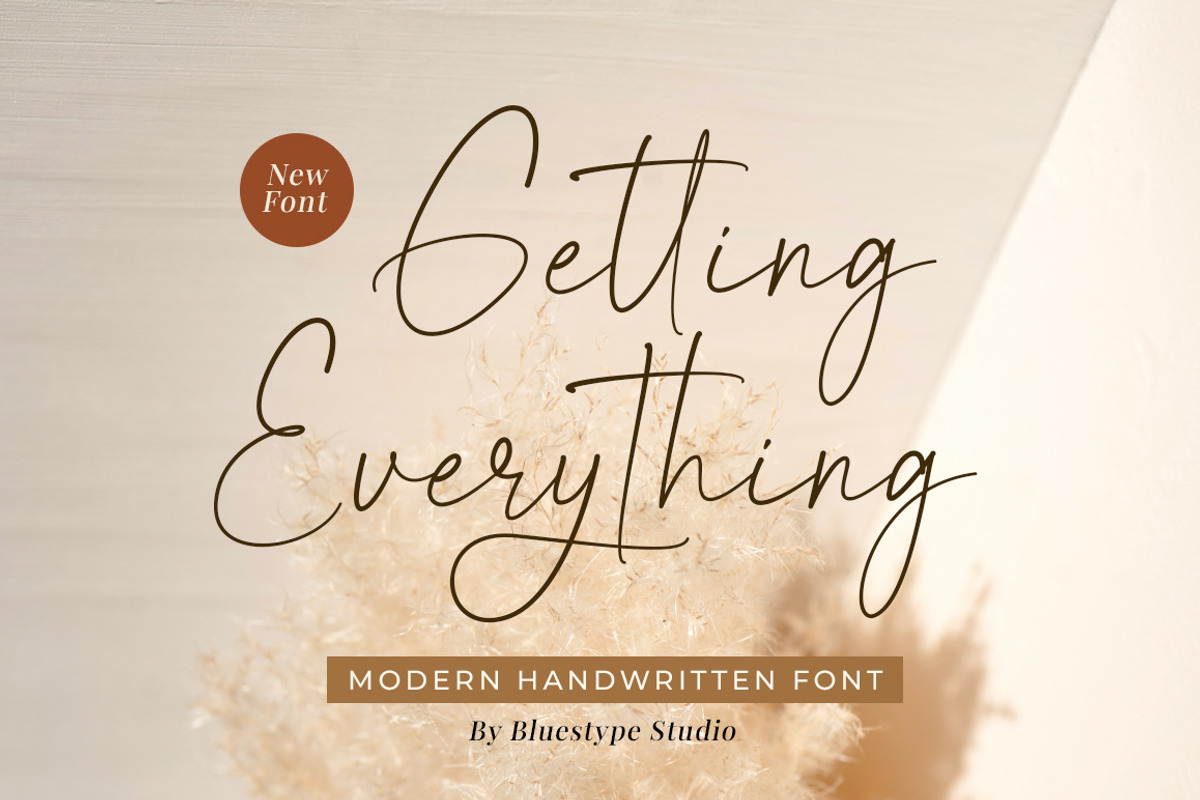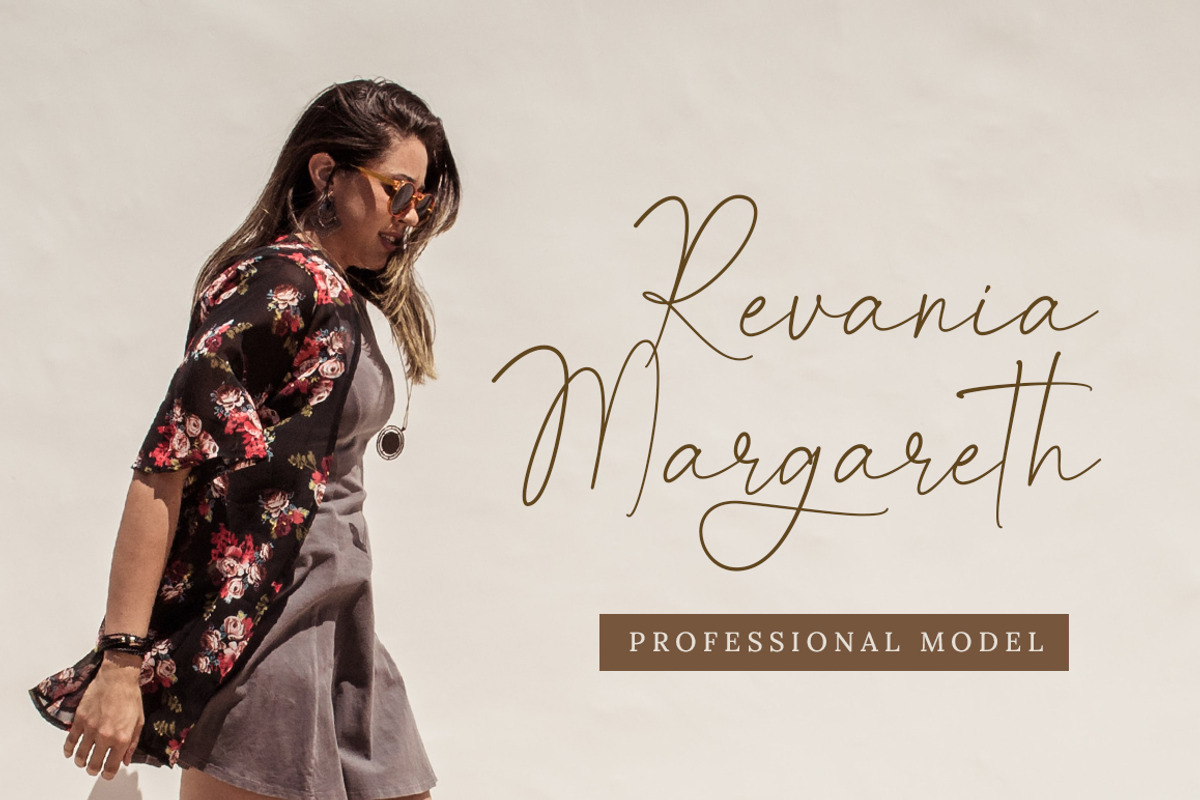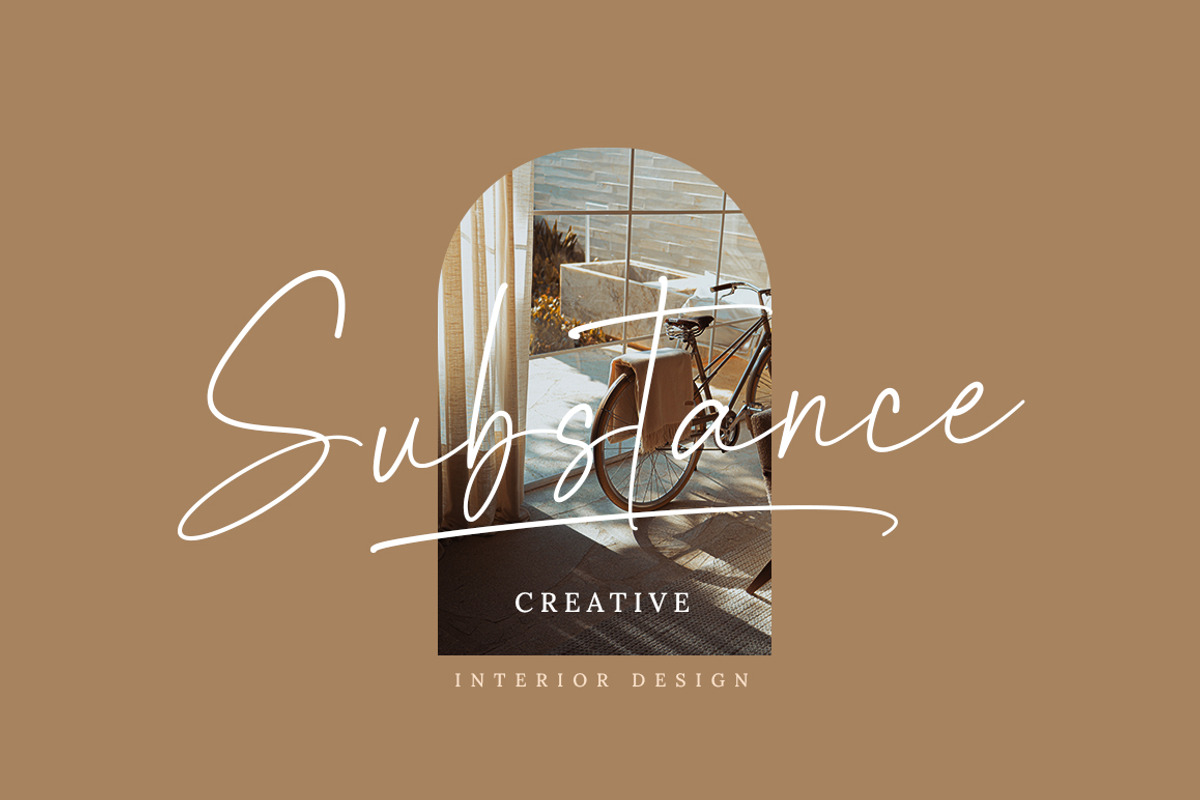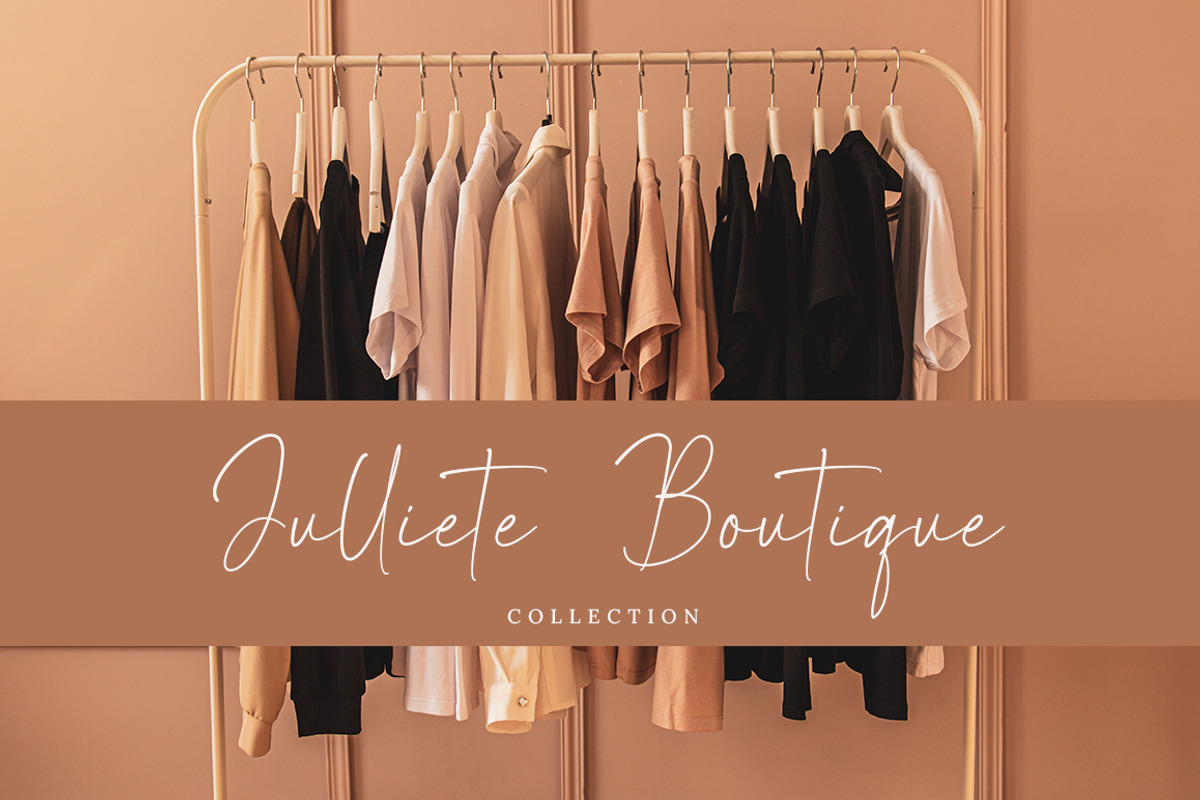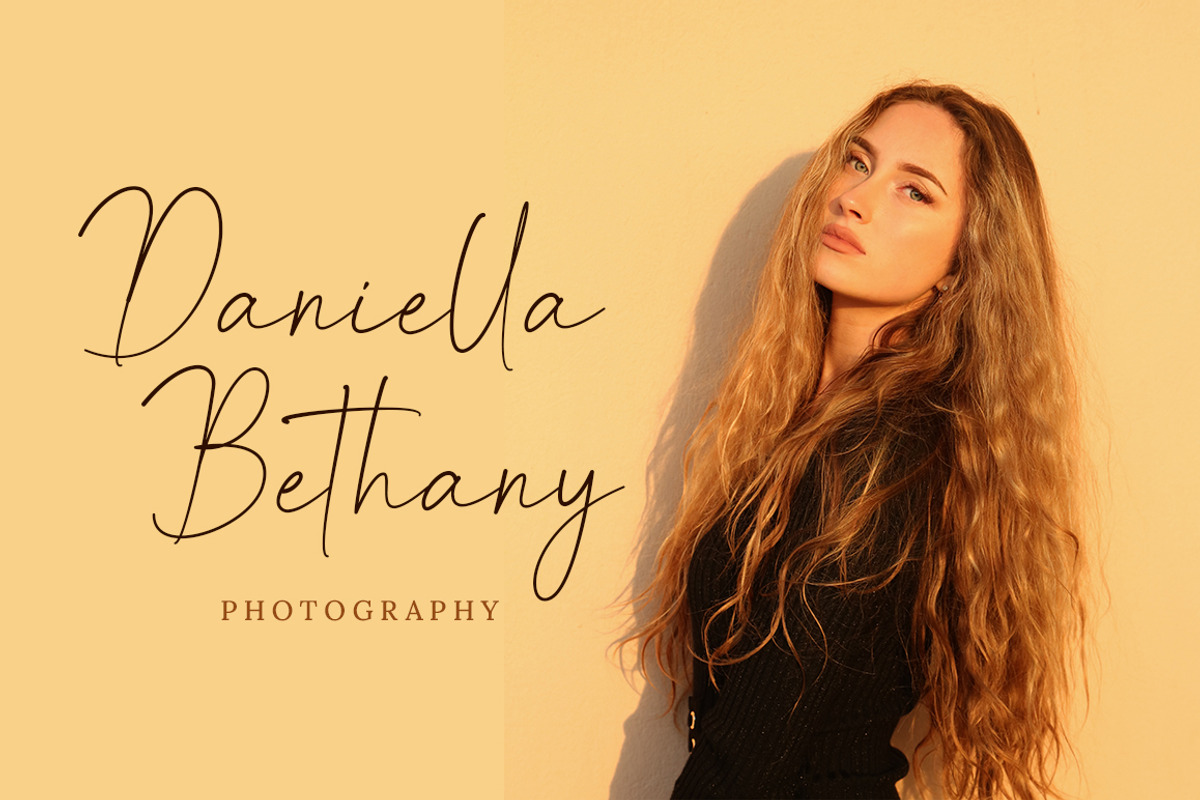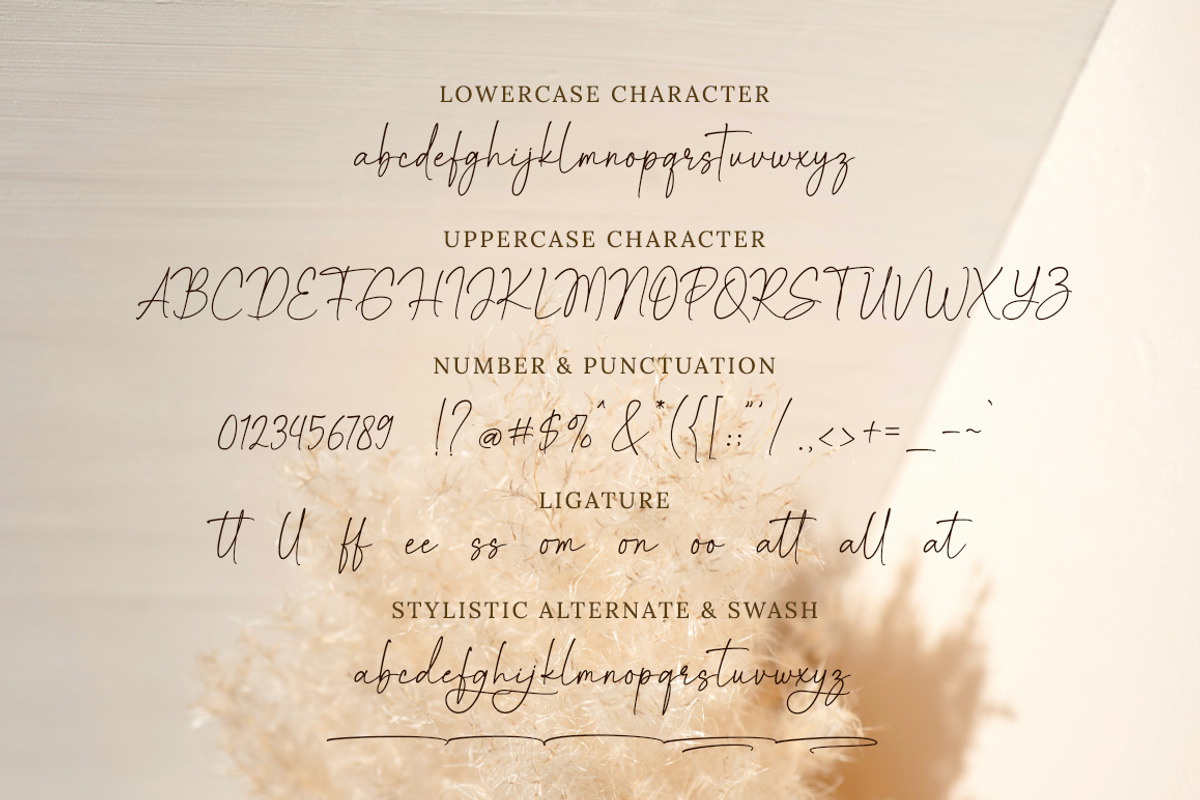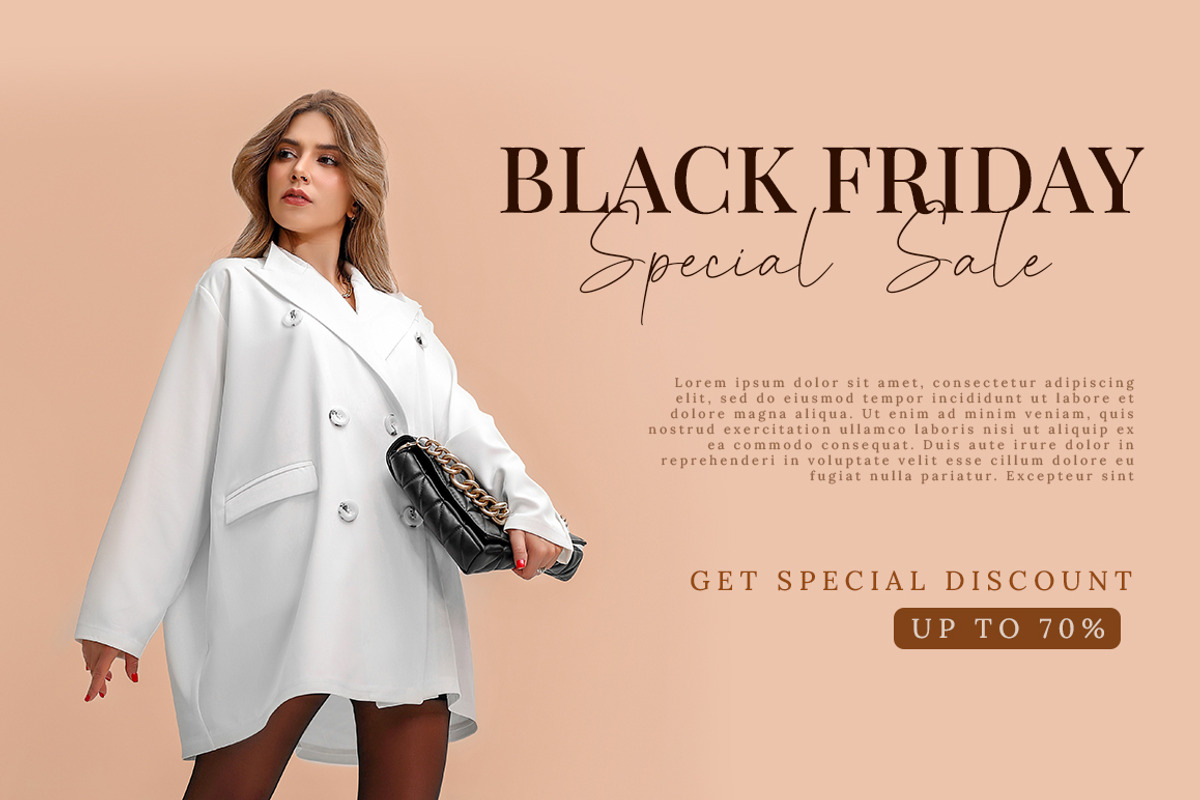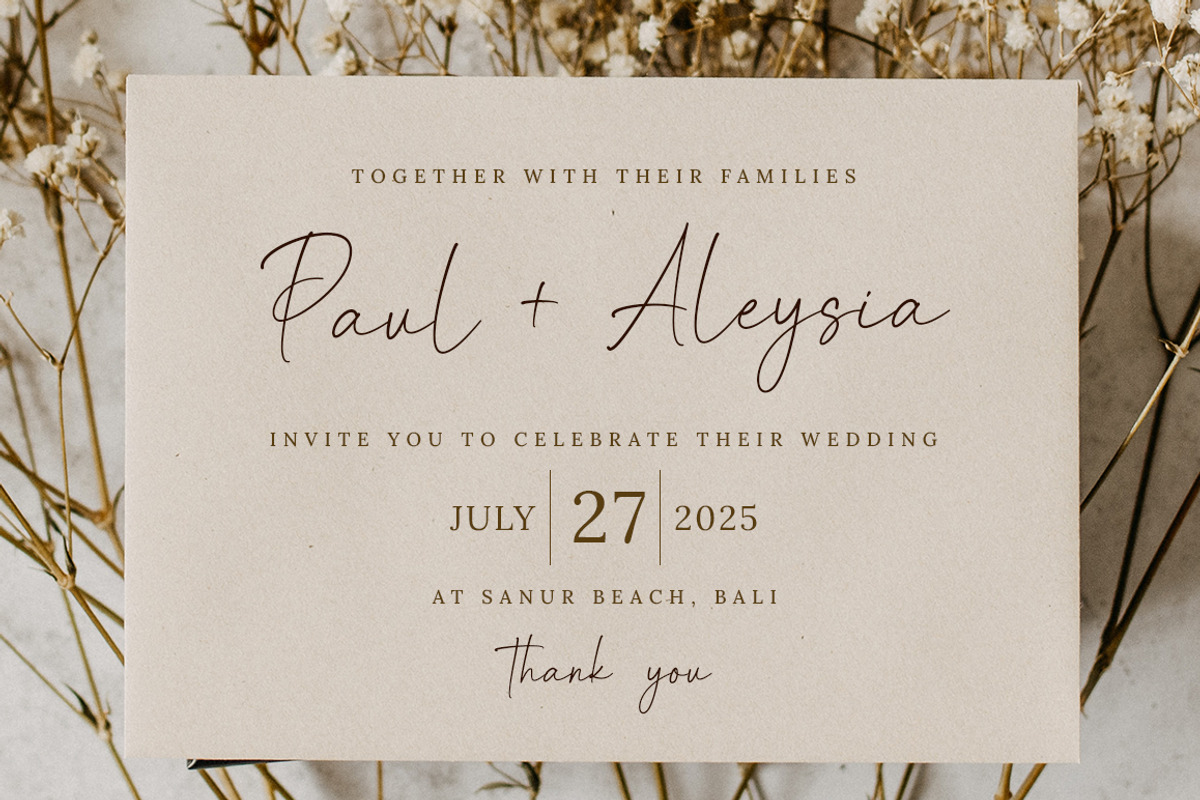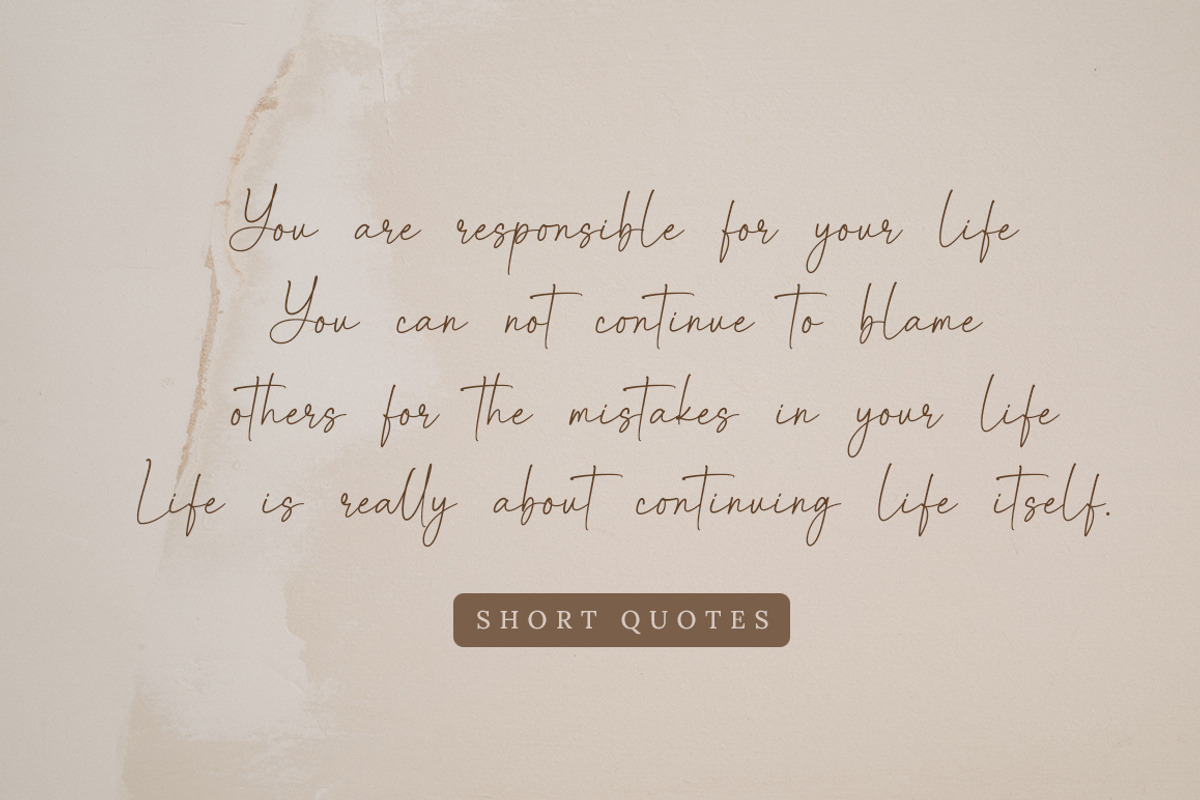
Getting Everything - Modern Font
Getting Everything is a stunning handwriting font with a natural twist. Use it for your
most creative projects and watch how it makes them come alive.
It will add a joyful and modern touch to each of your projects!
This font is suitable for use on branding, social media, business cards, weddings, t-shirt designs, logotype, magazines, quotes, fashion, watermarks, invitations, signatures.
- Swash & Alternate Characters
- Number & Punctuation
- Support Multilingual Languange